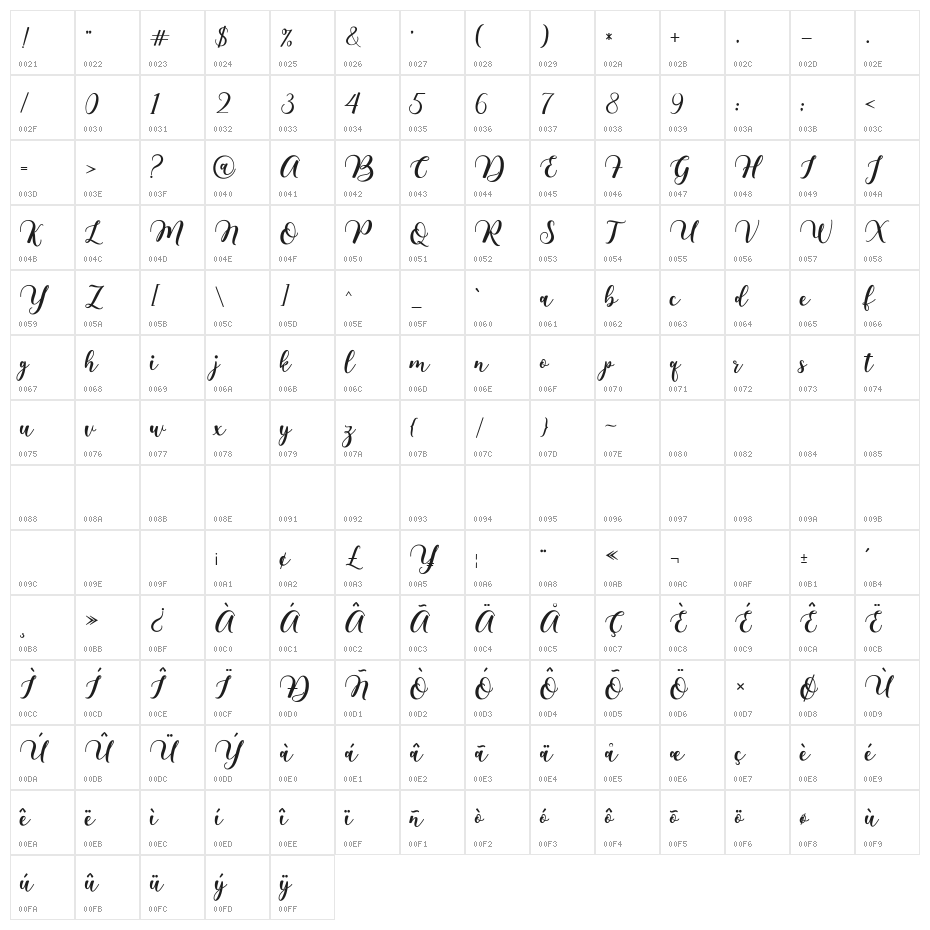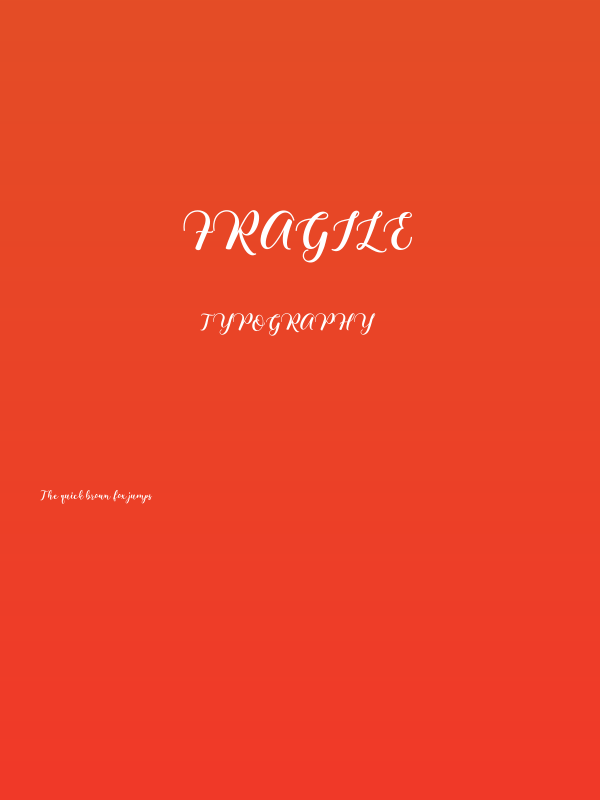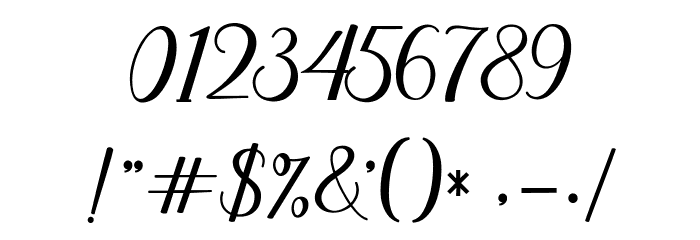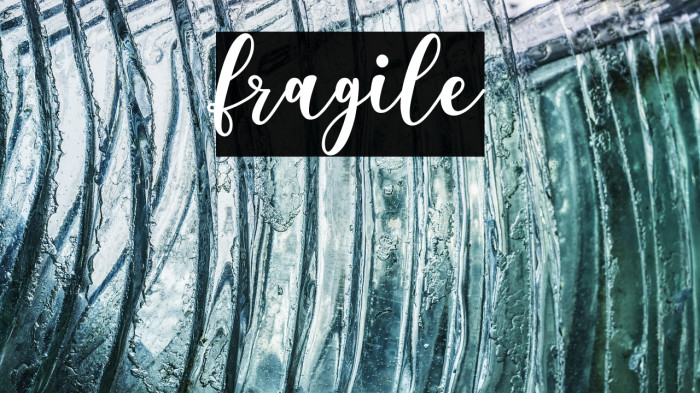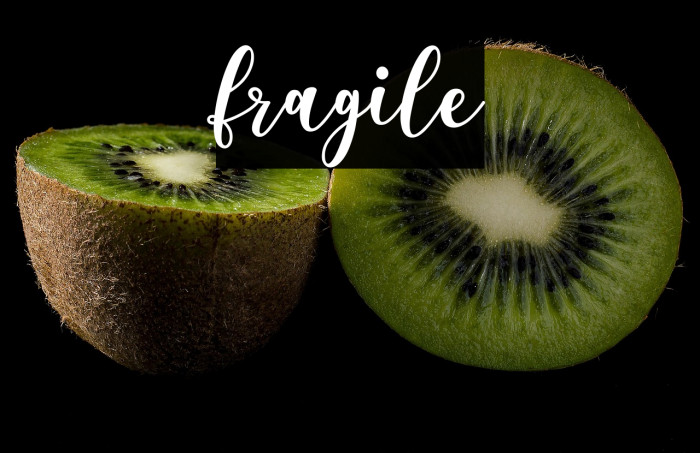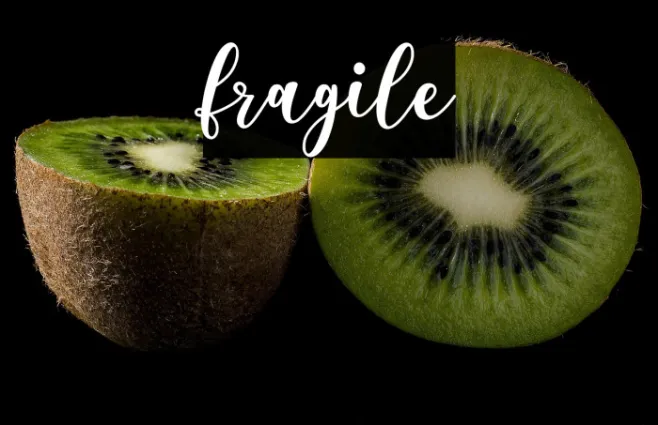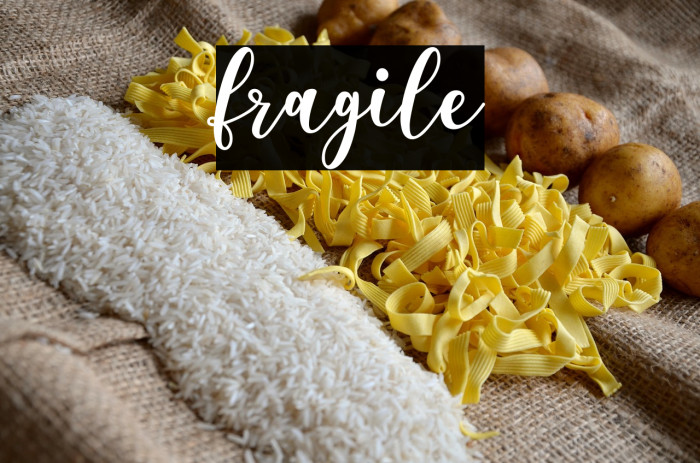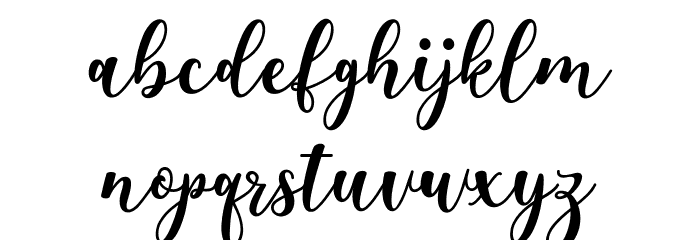
fragile Font
fragile Description
This elegant script font features a flowing, cursive style with smooth, rounded edges and a graceful appearance. The characters are interconnected, creating a seamless and fluid look that is both sophisticated and approachable. The uppercase letters are slightly larger and more ornate, while the lowercase letters maintain a consistent and harmonious flow. The numbers and special characters complement the overall design, adding versatility to its use. The font's delicate curves and balanced proportions make it ideal for projects that require a touch of elegance and refinement.
| Proposed Projects | Ideal for wedding invitations, greeting cards, branding, and elegant packaging designs. |